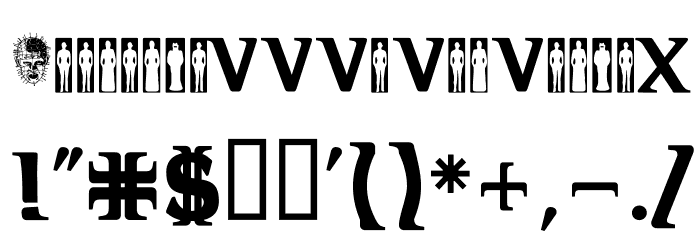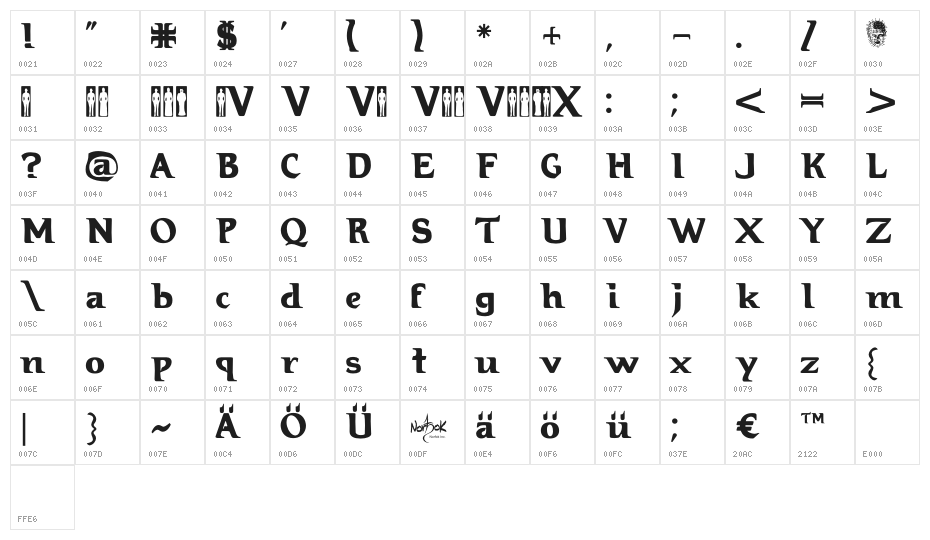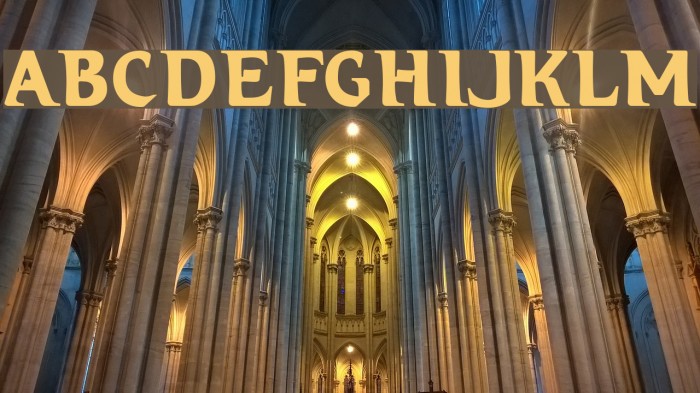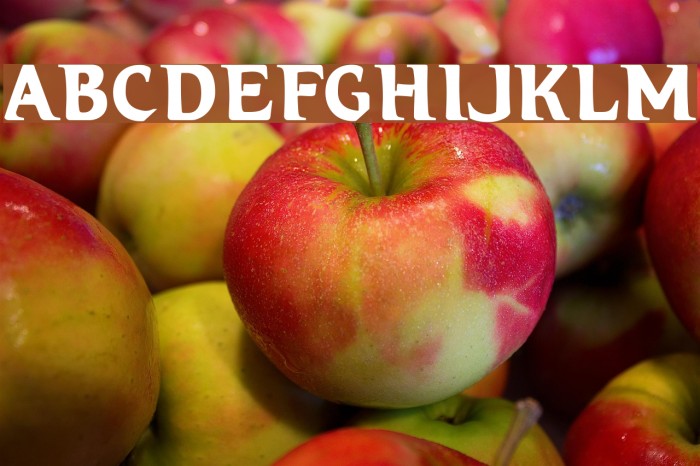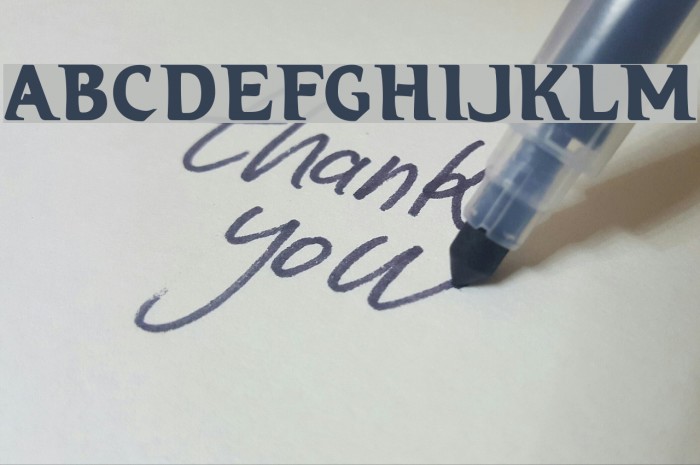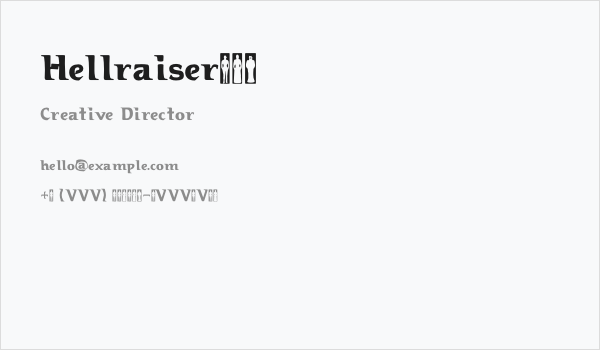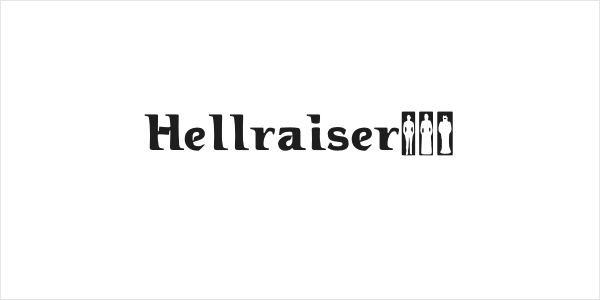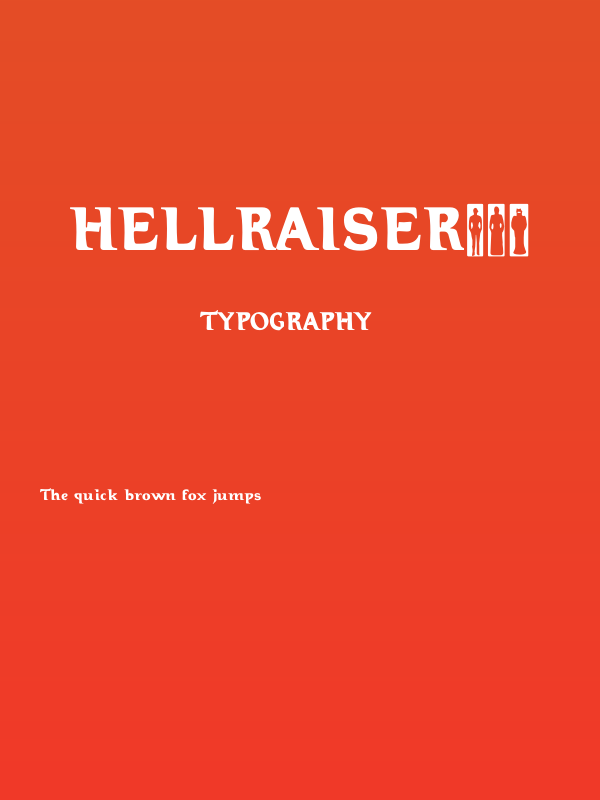
Hellraiser3 Font
Hellraiser3 Description
This font features a bold and dramatic style with sharp, angular serifs and a slightly condensed form. The uppercase letters are striking with a gothic influence, while the lowercase letters maintain a consistent weight and style, offering a cohesive look. The numerals and special characters follow the same bold aesthetic, making them stand out. The font's unique character is further enhanced by its high contrast in stroke thickness, giving it a dynamic and eye-catching appearance. This font is ideal for projects that require a strong visual impact and a touch of vintage flair.
| Overall Style | Gothic, Vintage |
| Proposed Projects | Perfect for horror-themed posters, book covers, movie titles, and branding that requires a bold statement. |